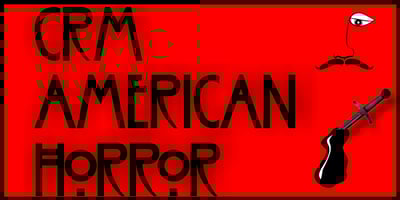
The Charles Rennie Mackintosh Font Company specialises in typefaces based upon the letterforms of Scotland's revered artist, architect and designer - Charles Rennie Mackintosh.
Launched in 1993, the Classic Charles Rennie Mackintosh Font was the brainchild of designer George R. Grant, mainly because his accountant needed the typeface for his wedding invitations! Initially marketed at the printing and graphic design fraternity, sales of the font really snowballed as home PCs became the rule rather than the exception.
The timeless beauty of this font has been enjoyed all over the globe, with museums in Los Angeles, Houston, and Washington DC having distributed it at various times. The font also enjoyed the limelight of Hollywood, with one-time Glasgow School of Art student, director Sam Raimi, requesting its use in his second "Spider Man" movie. George employed the talents of Glasgow designer Joanna McKnight to help with the artwork for the CRM ARTLOVER Font, which was launched in 1995. Many customers had requested a lowercase font (despite the fact that most of Mackintosh's "embellishments" were in uppercase) for printing letters and other larger areas of text. George eventually ;o) obliged and the world's first CRM Font to feature lowercase lettering was born in 2006, to coincide with the inaugural Mackintosh Festival in his home town of Glasgow.